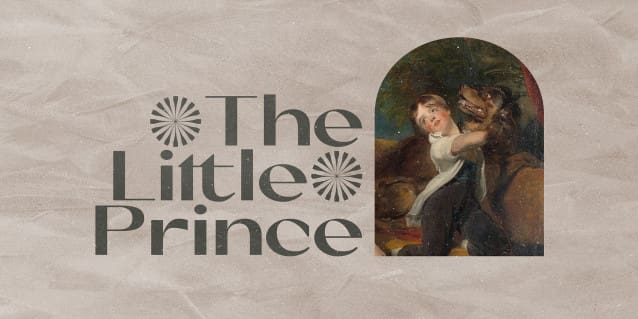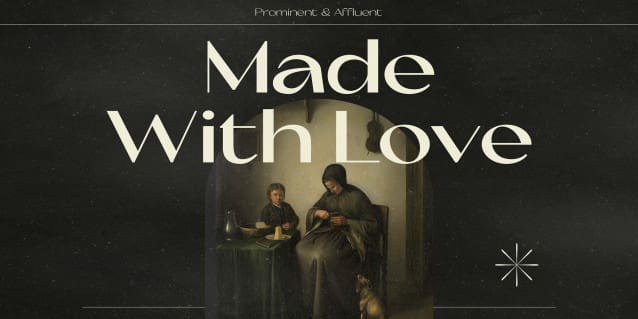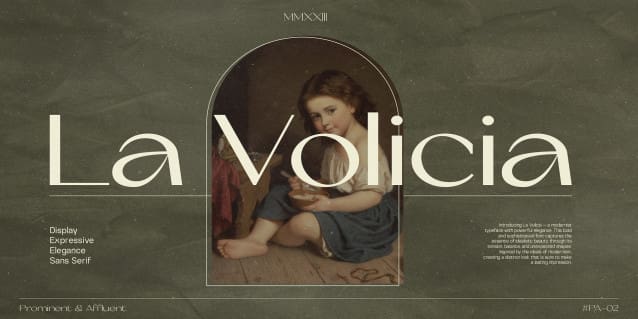
La Volicia Font
La Volicia Font Family, a modernist typeface with powerful elegance. This bold and sophisticated font captures the essence of idealistic beauty through its tension, balance, and unexpected shapes. Inspired by the ideals of modernism, creating a distinct look that is sure to make a lasting impression.